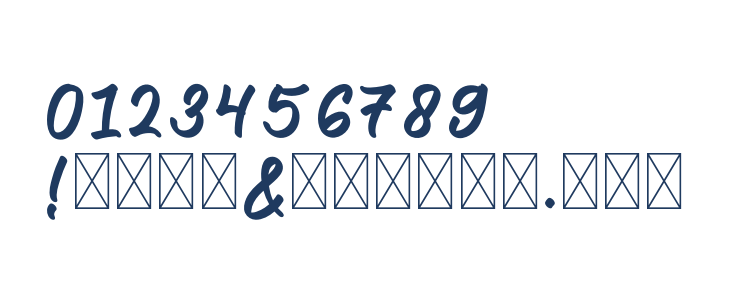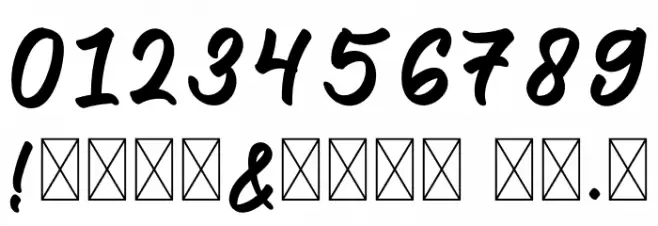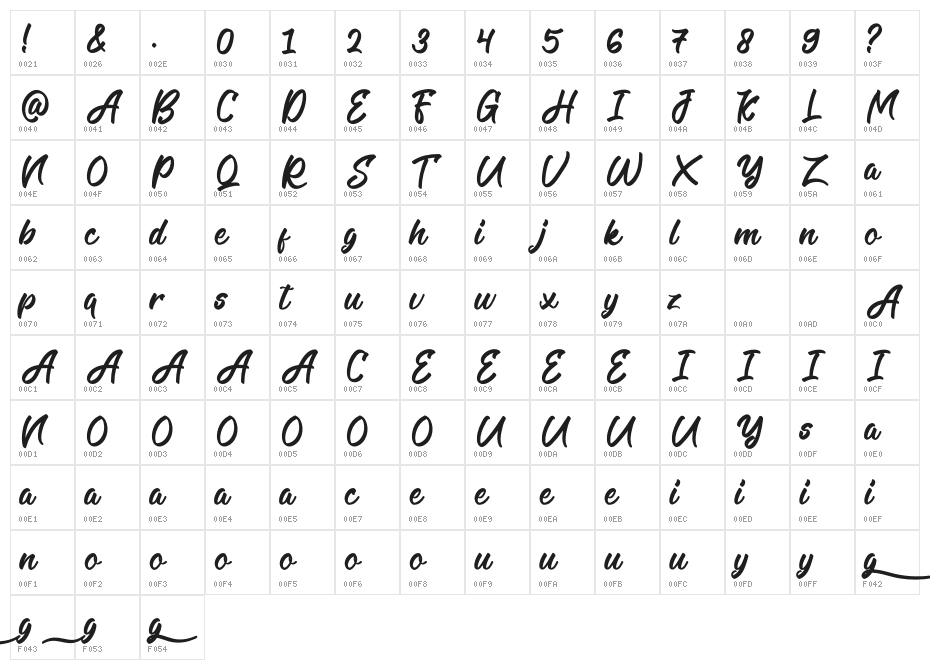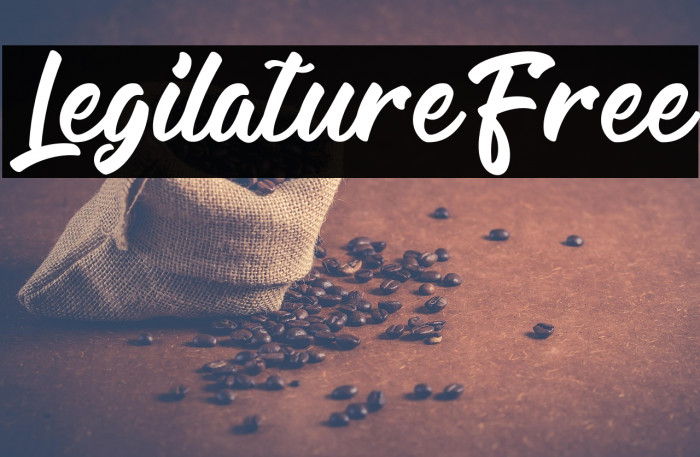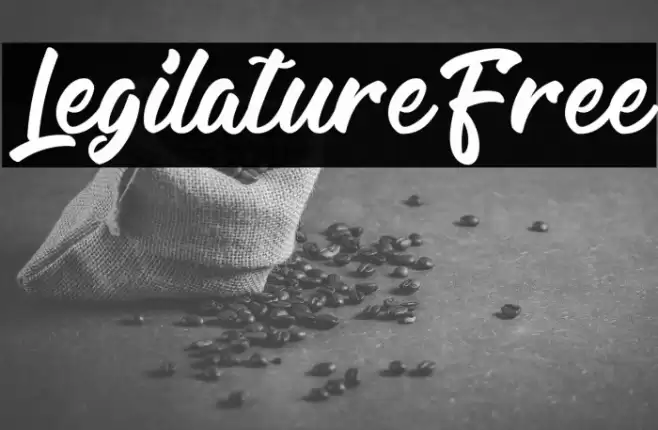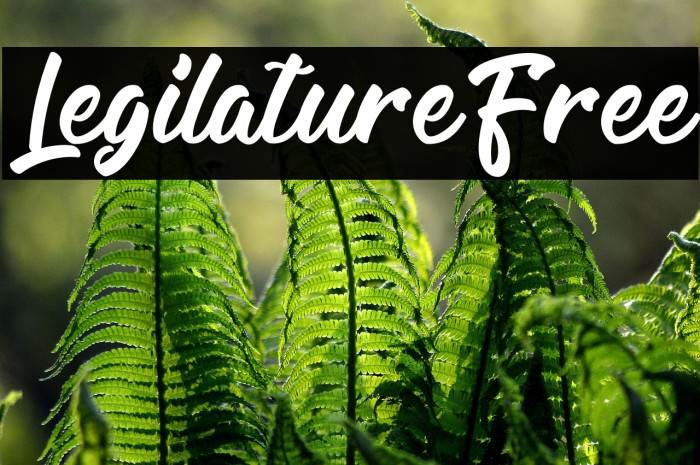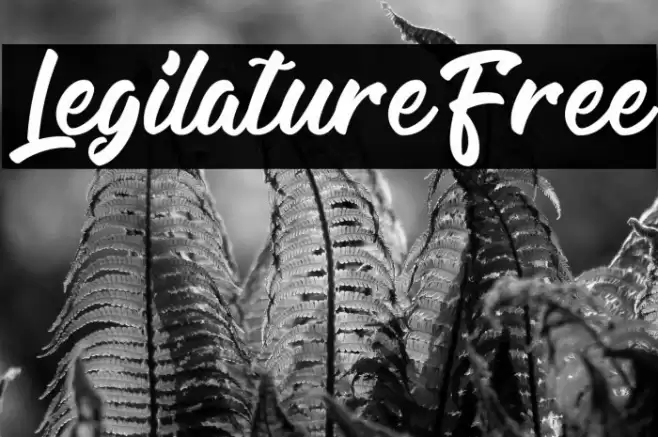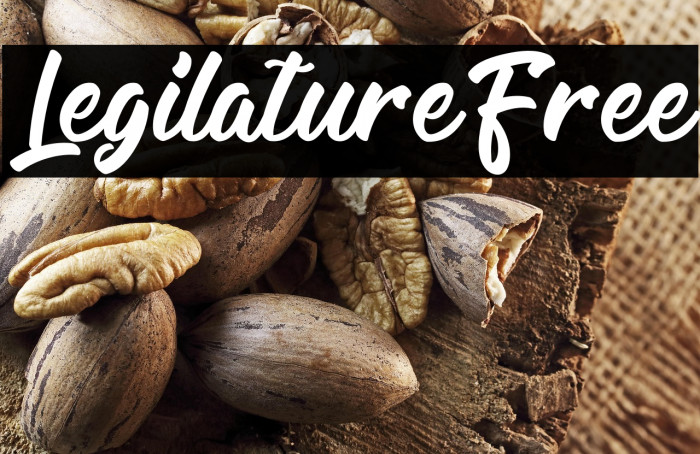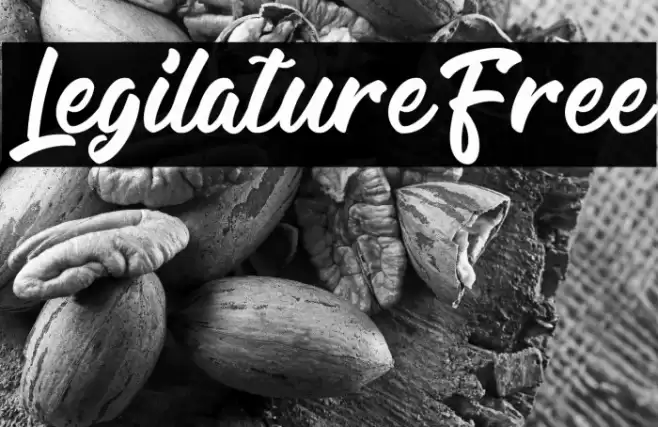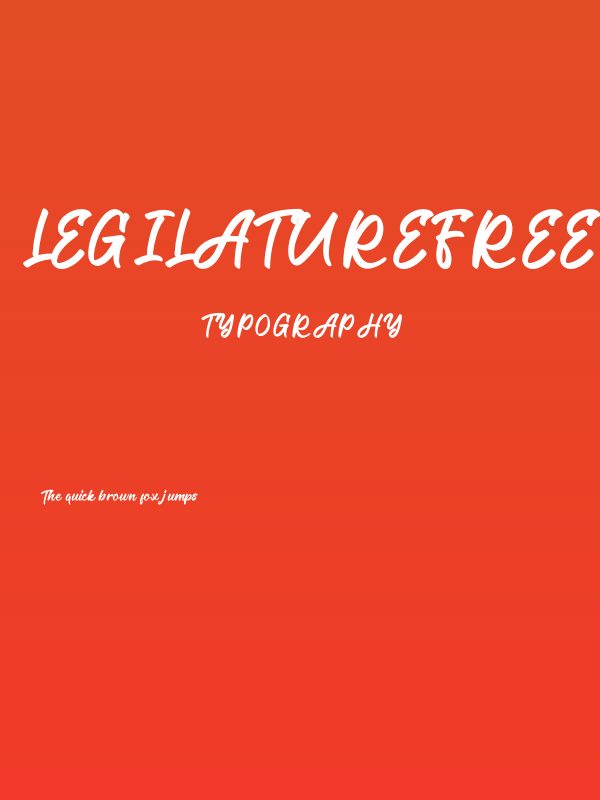
LegilatureFree Font
LegilatureFree Description
This font features a bold and expressive script style, characterized by its flowing, cursive letters that convey a sense of elegance and dynamism. The uppercase letters are slightly slanted, adding a touch of sophistication, while the lowercase letters maintain a consistent, smooth flow. The numerals are distinct and easy to read, complementing the overall aesthetic. The special characters are designed to match the script's fluidity, ensuring a cohesive look across all text elements. This font's bold strokes and moderate contrast make it suitable for a variety of design applications.
| Proposed Projects | Ideal for wedding invitations, branding, logo design, and elegant packaging. |